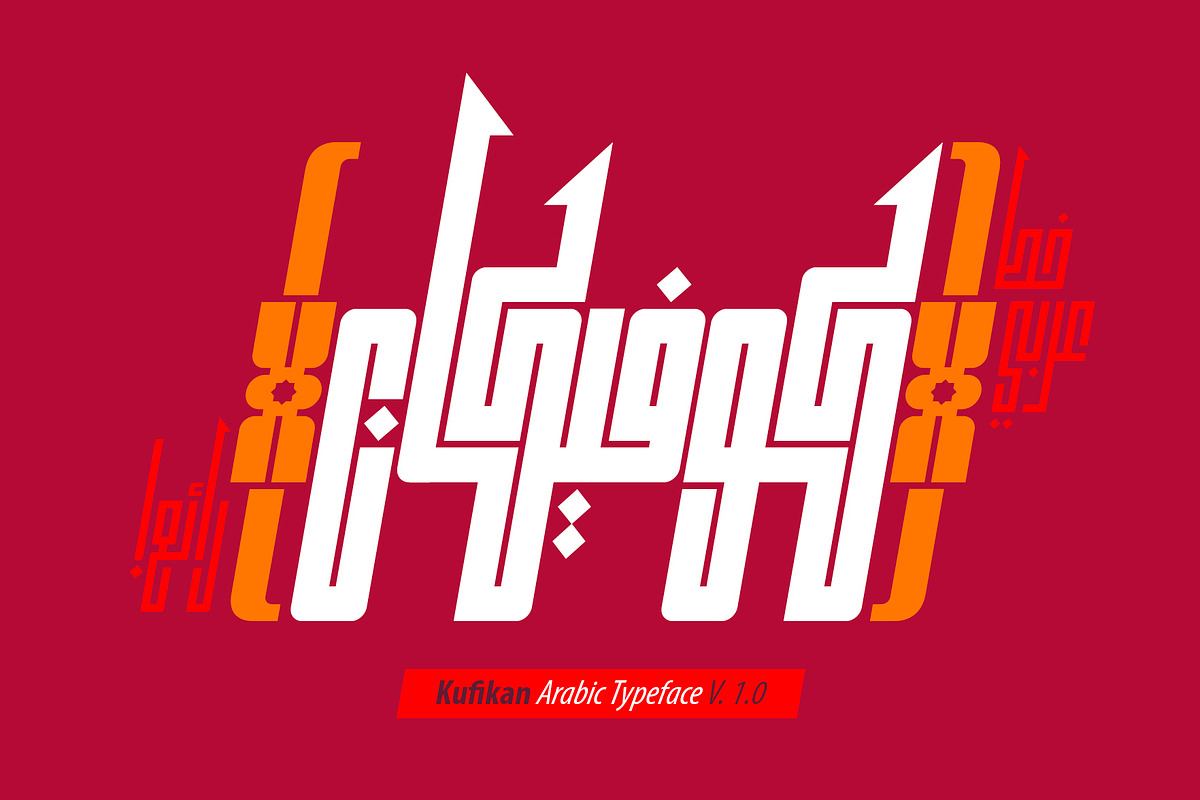
The Kufikan - Arabic Typeface Free Download is a modern and elegant Arabic typeface, designed with clean lines and intricate details. Perfect for creating professional branding, websites, posters, and various Arabic-script projects, this font offers a sleek, sophisticated look. Please note, for commercial use, a license must be purchased. You can download it for free for testing purposes.
With its traditional Arabic design combined with modern elements, the Kufikan - Arabic Typeface Free Download is ideal for projects that need an authentic yet contemporary Arabic touch. Whether you're working on print media, digital content, or custom designs, this font will add a distinctive and refined look to your work.